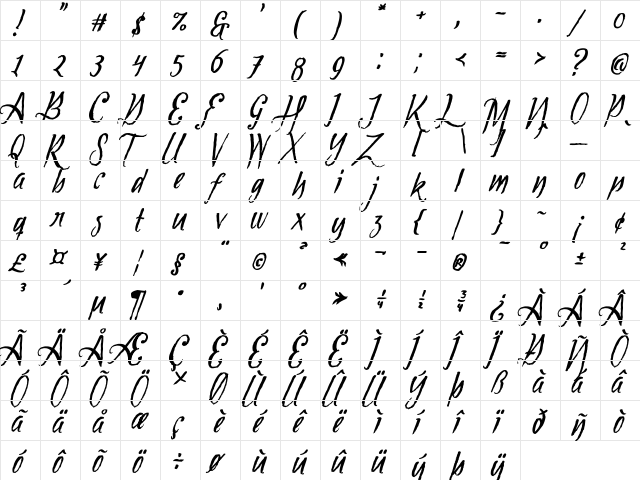
Tipbrush Script Slanted Italic
Design Context for Tipbrush Script Slanted Typeface
Tipbrush Script Slanted flows with the natural rhythm of handwritten lettering, making it ideal for designs that call for warmth and personal expression.
Font Pairing: Combine Tipbrush Script Slanted with a simple geometric sans for maximum contrast — the tension between flowing curves and clean structure is a classic typographic pairing.
Pro Tip: Pair Tipbrush Script Slanted with a clean sans-serif for supporting text. The contrast between fluid script and geometric structure creates an elegant typographic hierarchy.